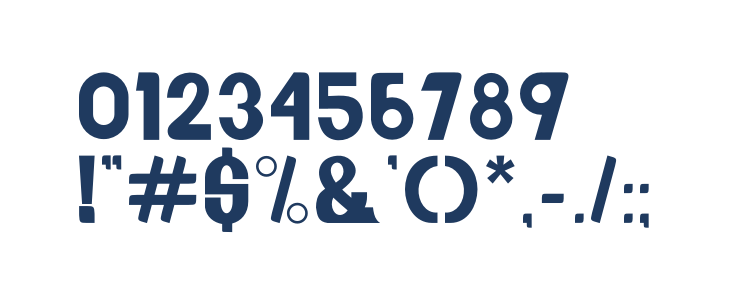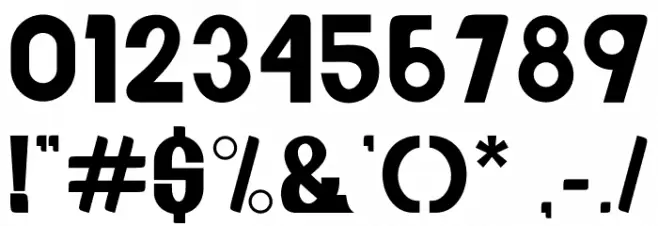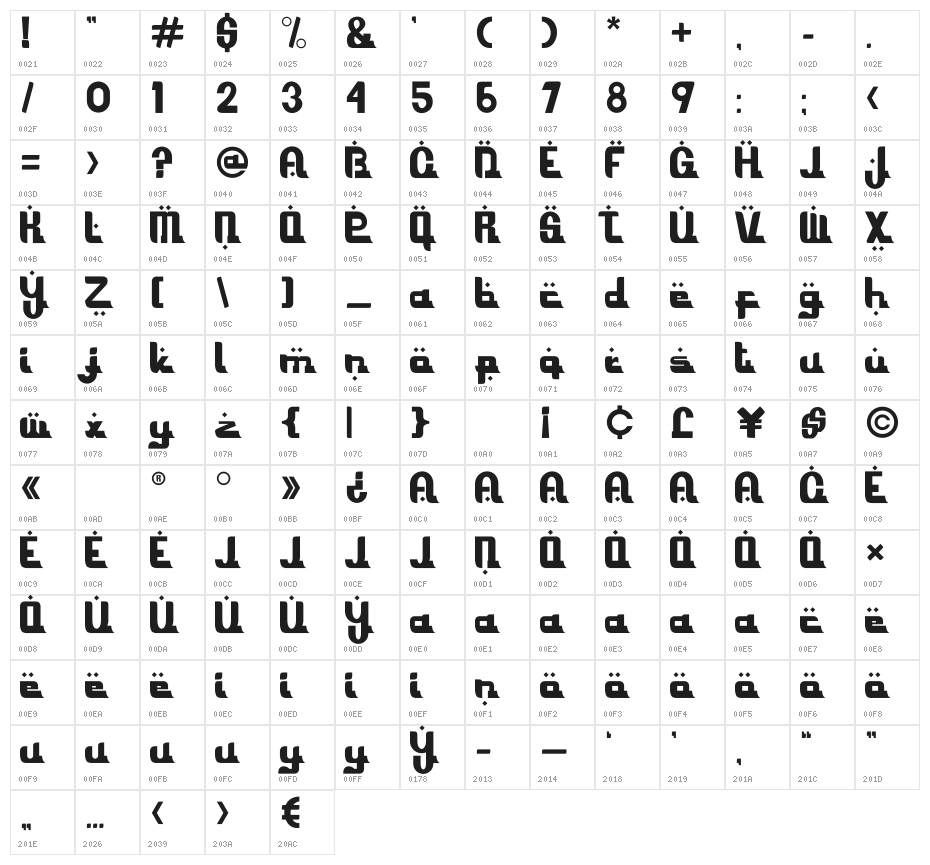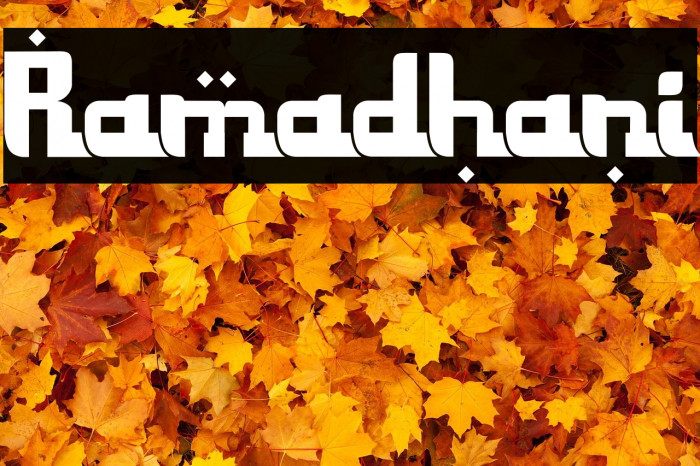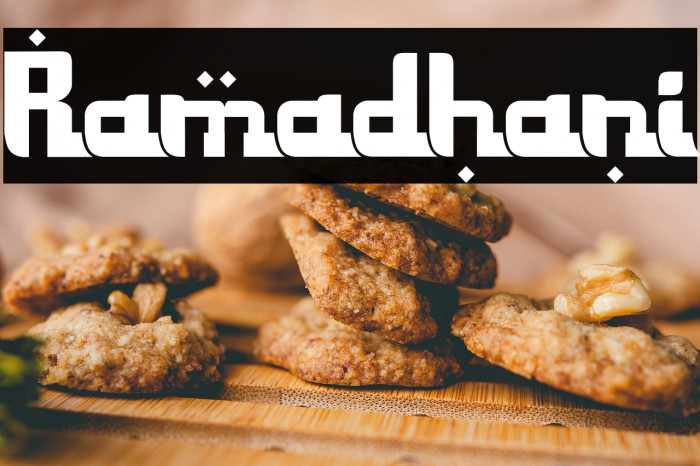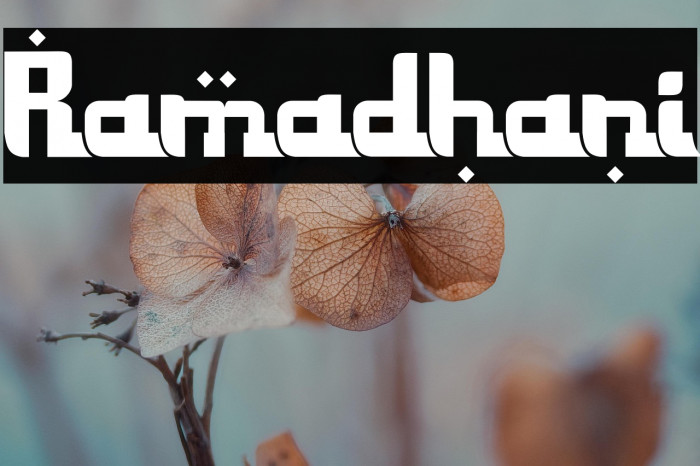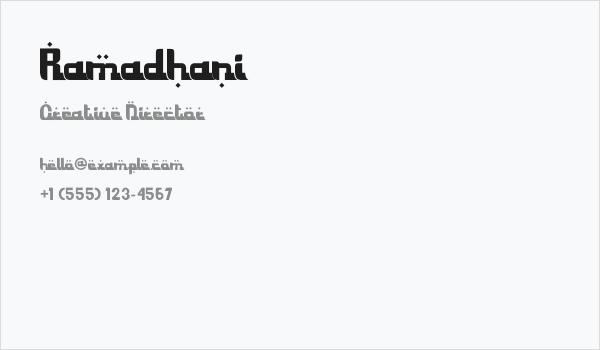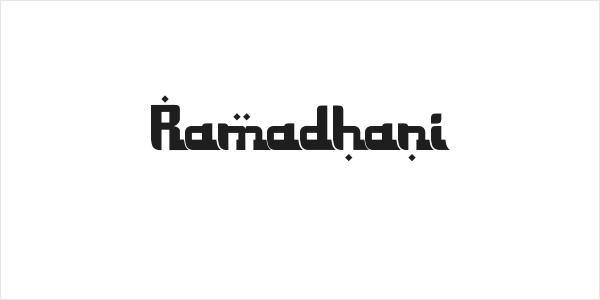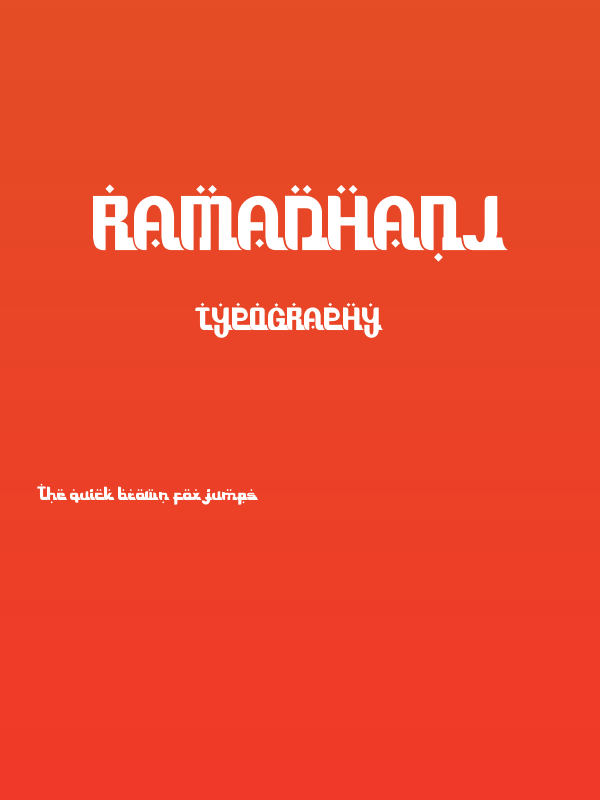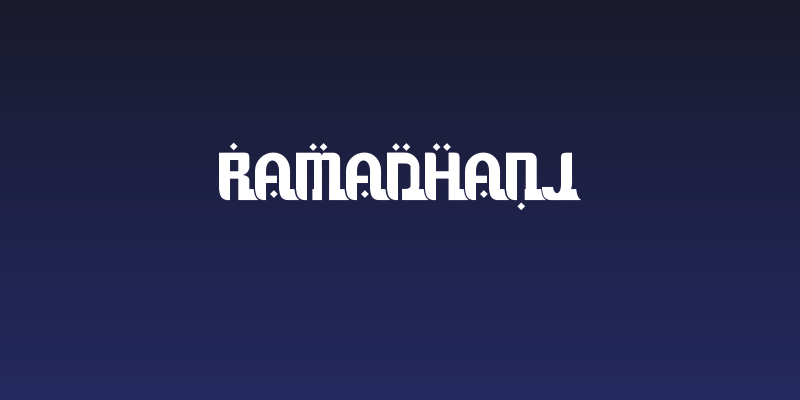
Ramadhani Font
Ramadhani Description
This font features a bold and striking design with a modern, geometric style. The characters are constructed with thick, block-like forms, giving them a strong presence. Each letter is adorned with unique diacritical marks, adding an exotic flair. The uppercase and lowercase letters maintain a consistent style, with the lowercase being slightly more compact. Numbers are bold and easily readable, while special characters are creatively designed to match the overall aesthetic. The font's distinctive look makes it ideal for attention-grabbing headlines and creative projects.